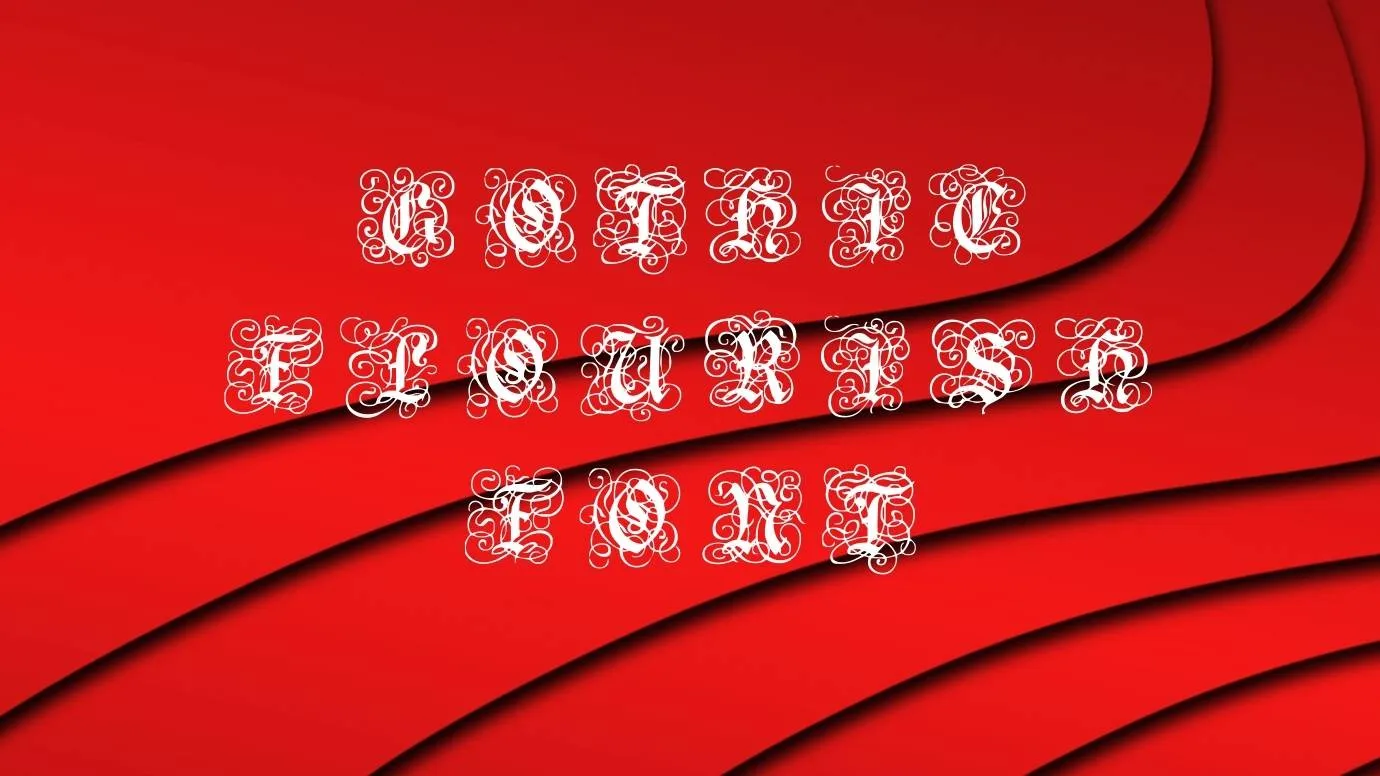
Gothic Flourish Font Family is a calligraphy typeface that is so popular in the designing industry due to its unique look. This beautiful typeface was designed by Residence of lime. This typeface was published in 2000.
It has more than one hundred characters including currency symbols, punctuations, and uppercase characters. Due to its amazing and eye-catching characters, this typeface is perfect for calligraphic designs.
| Name | Gothic Flourish Font |
| Type | calligraphy |
| Designer | Residence of Lime |